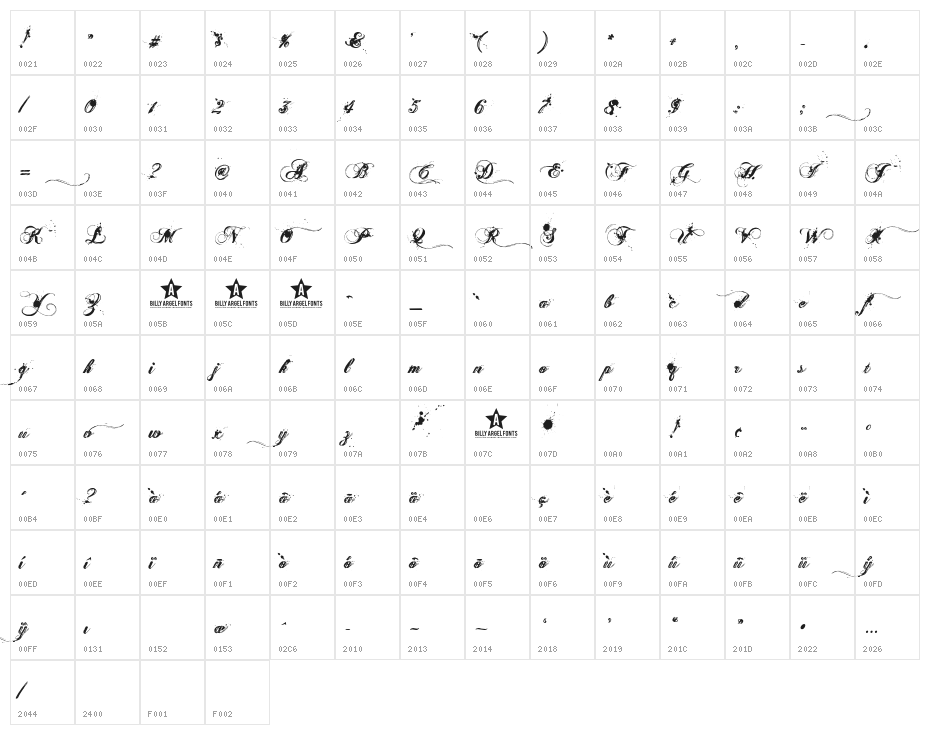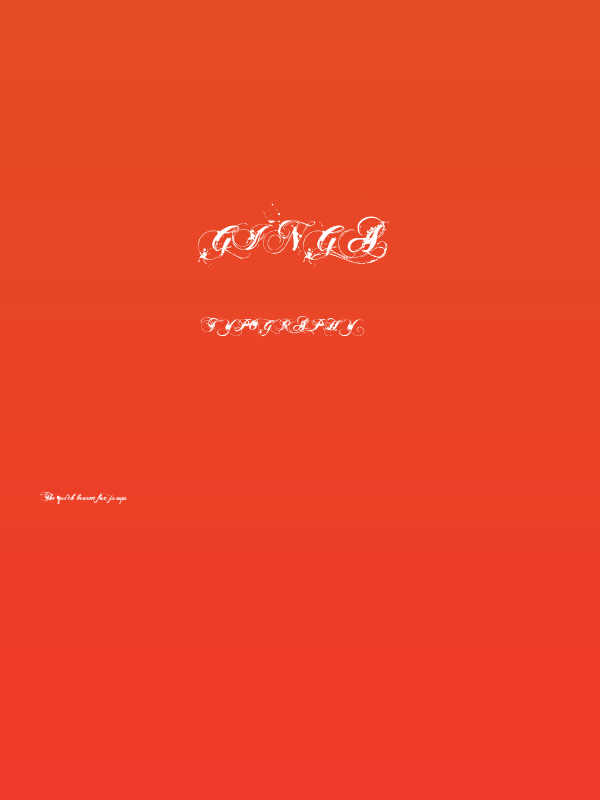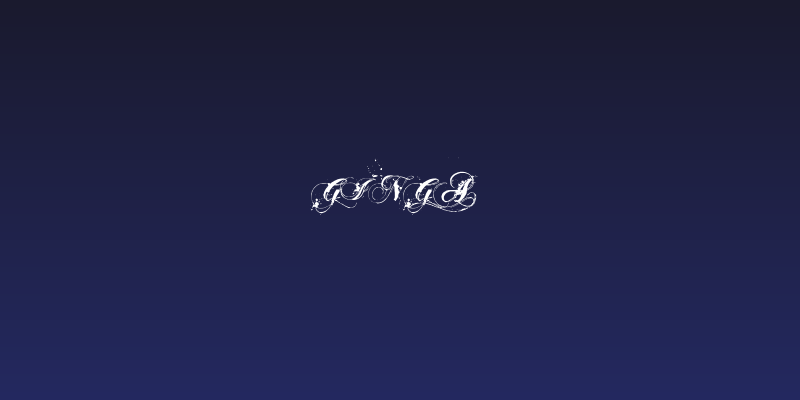
Ginga> Font
| Anwendungsfall | Logos, Headlines, Artistic projects |
| Vorgeschlagene Projekte | Ideal for album covers, posters, artistic branding, and creative invitations. |